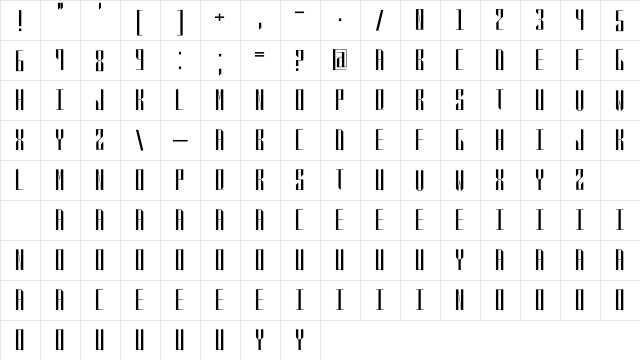
QVR Sharp Display Regular
| Foundry | NiccolؠAgnoletti |
| Designer | blazardsky |
Design Context for QVR Sharp Display Typeface
QVR Sharp Display is built around its visual character rather than neutral utility — its distinctive forms are designed to make an impression at display sizes.
Font Pairing: Pair with a clean neutral sans-serif for body copy to let QVR Sharp Display's character lead without overwhelming the composition.
Pro Tip: Treat QVR Sharp Display as the centrepiece of your typographic hierarchy. One strong heading set in a decorative face can carry an entire layout.